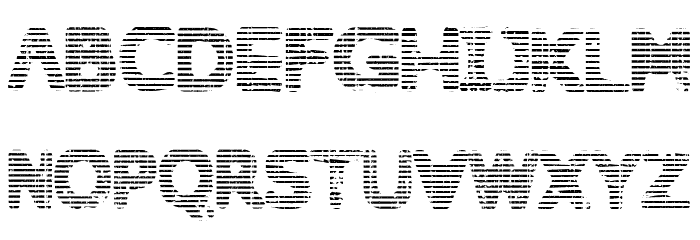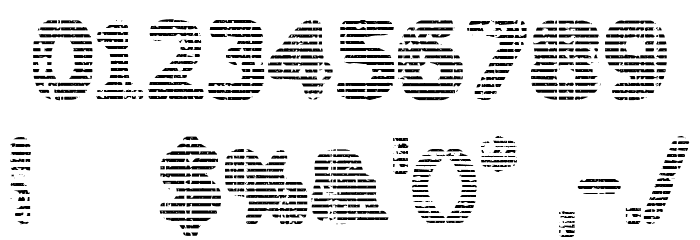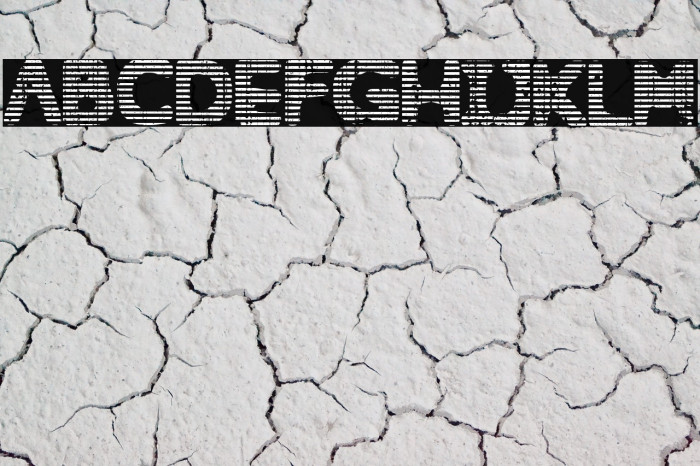
Behind Dirty Blinds Font
This font features a unique, distressed appearance, reminiscent of text viewed through blinds or slats. The characters are bold and display a horizontal striped pattern that gives them a weathered, textured look. This design creates a sense of mystery and intrigue, making it ideal for projects that require a gritty or urban aesthetic. The uppercase and lowercase letters, along with numbers and special characters, maintain this consistent style, ensuring a cohesive look across different uses. The font's distinctiveness lies in its ability to convey a sense of depth and dimension, as if the letters are partially obscured or hidden.
A bold, distressed font with a horizontal striped pattern, ideal for gritty designs.
- Font: Behind Dirty Blinds
- Proposed Projects: Perfect for album covers, movie posters, urban-themed branding, or any project needing a mysterious, edgy vibe.